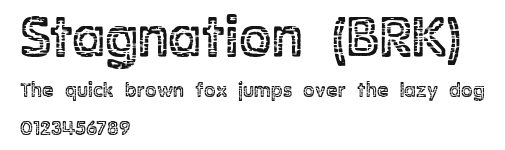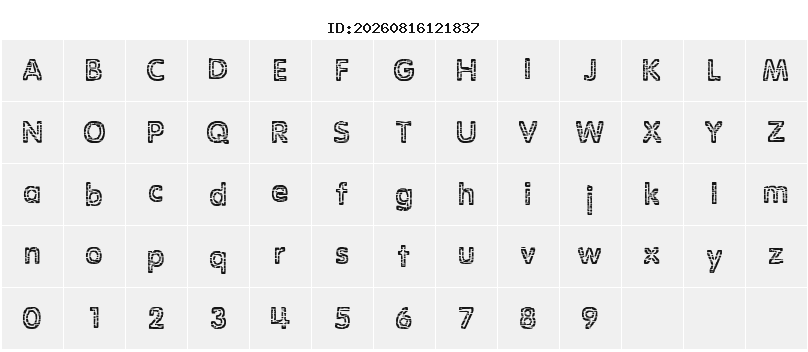
• Font Name: Stagnation (BRK)
• Full Font Name: Stagnation -BRK-
Stagnation (BRK).ttf is a modern, elegant sans-serif font designed for ultimate readability and visual harmony. Perfect for branding, headlines, web design, and print materials.